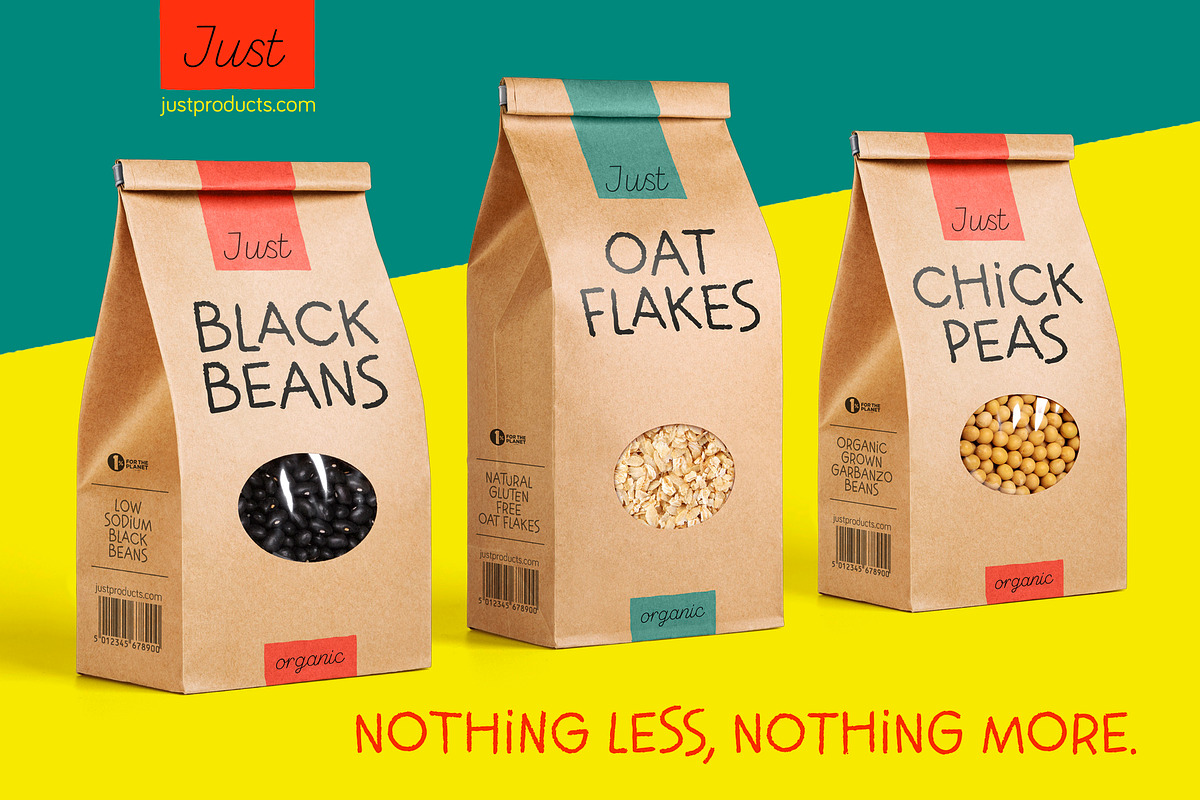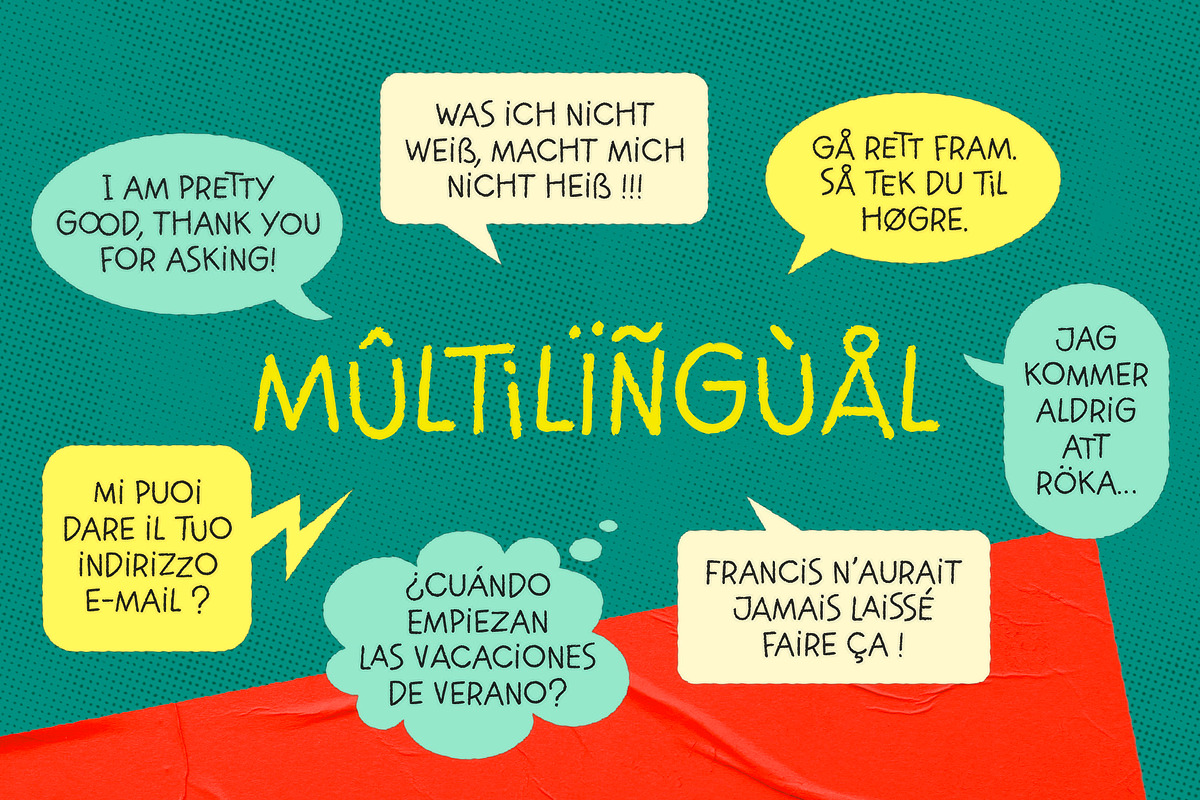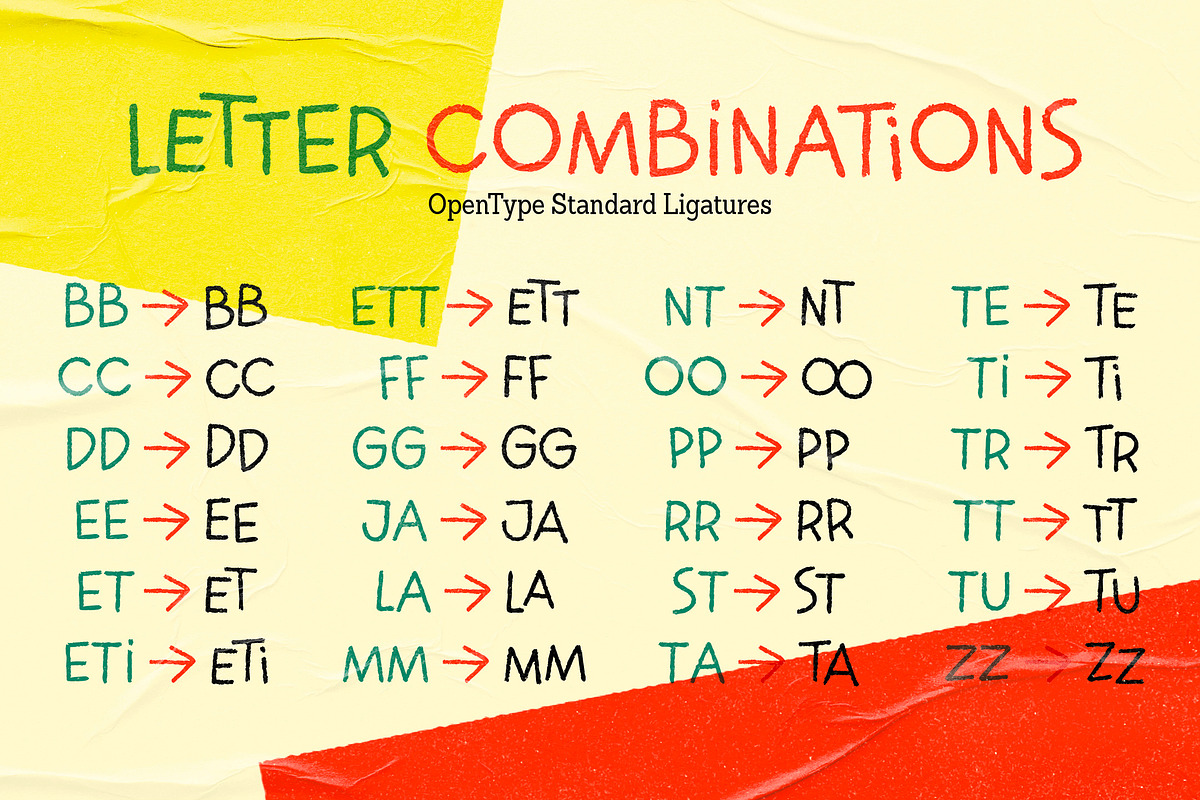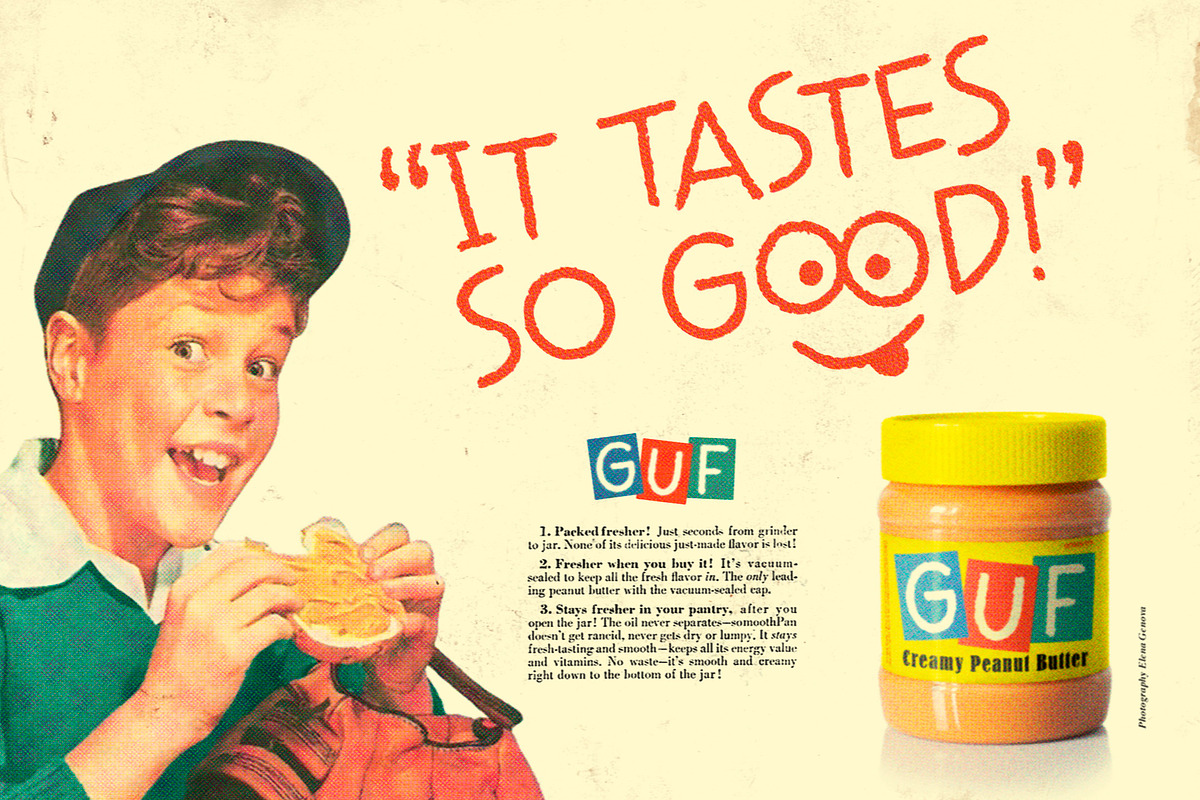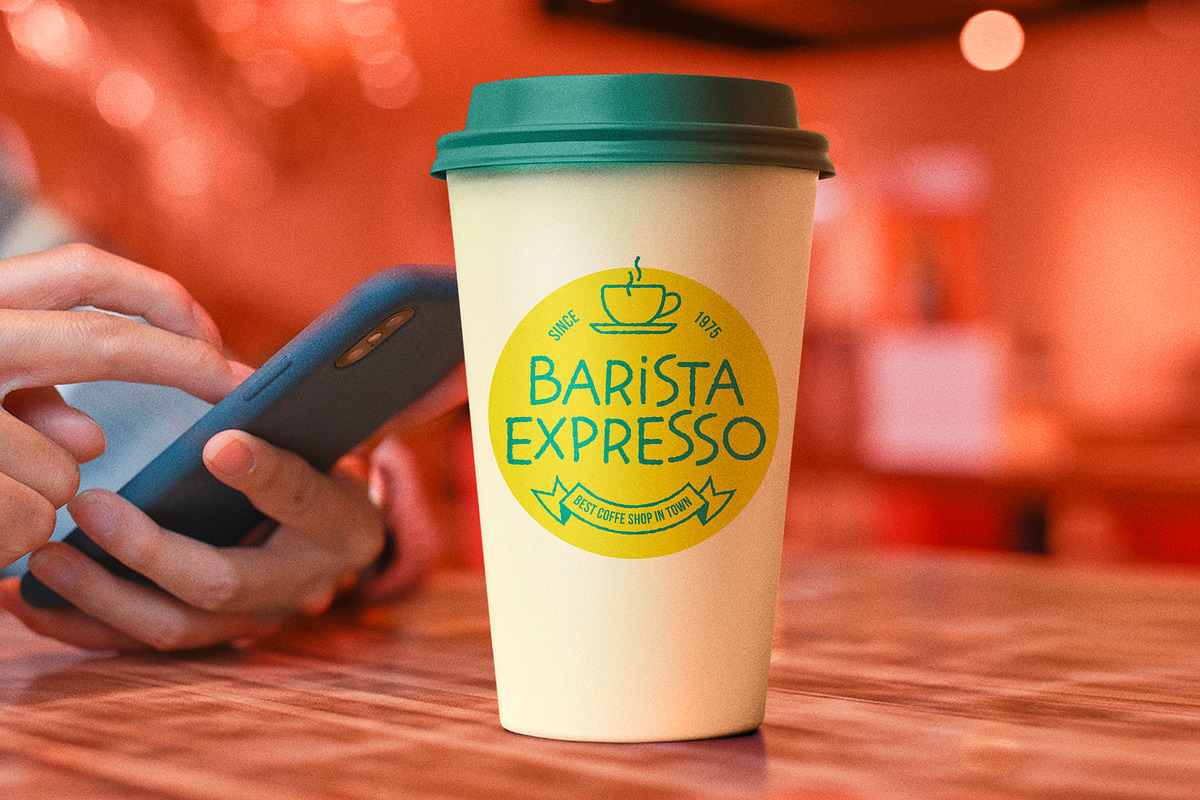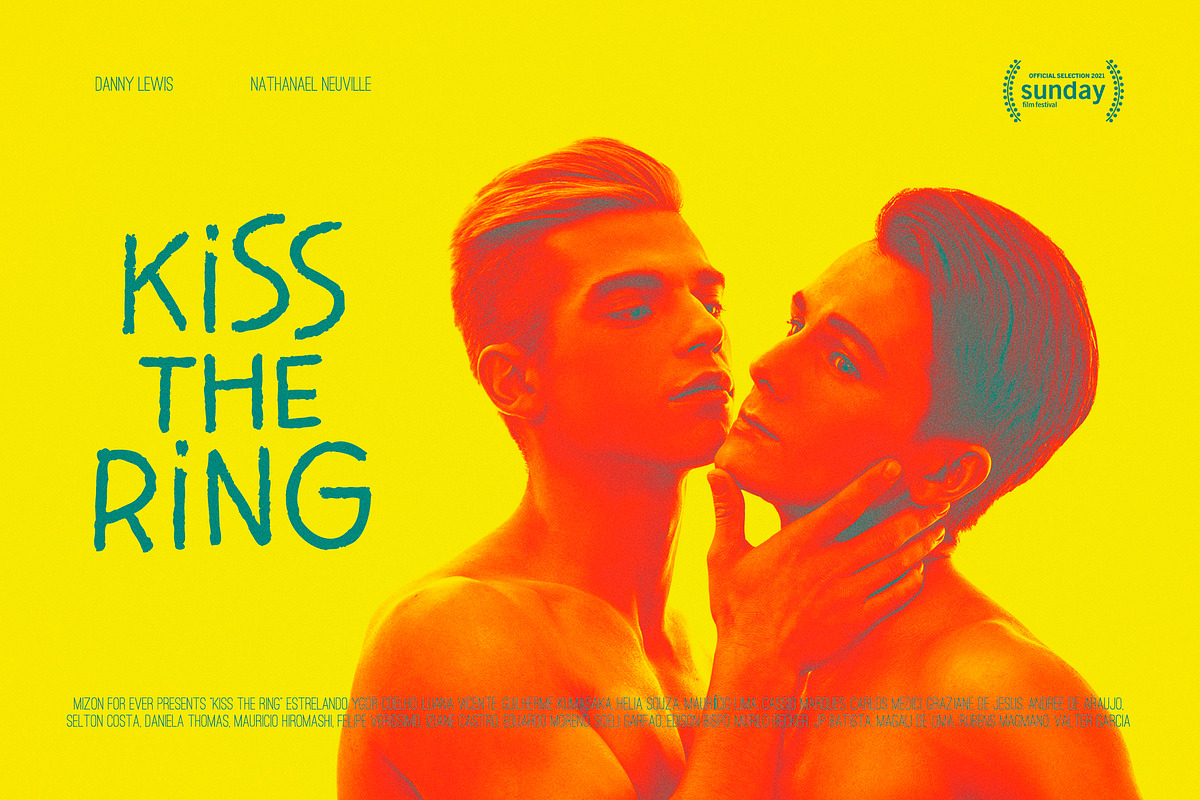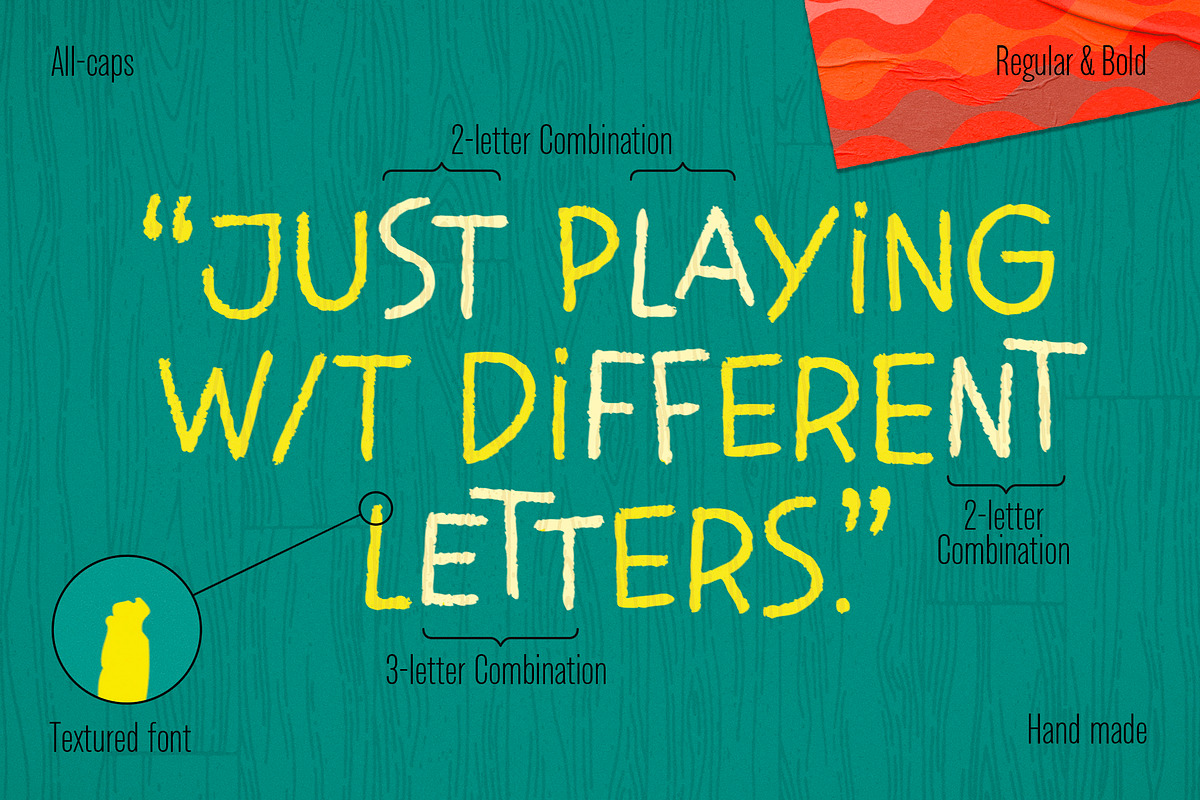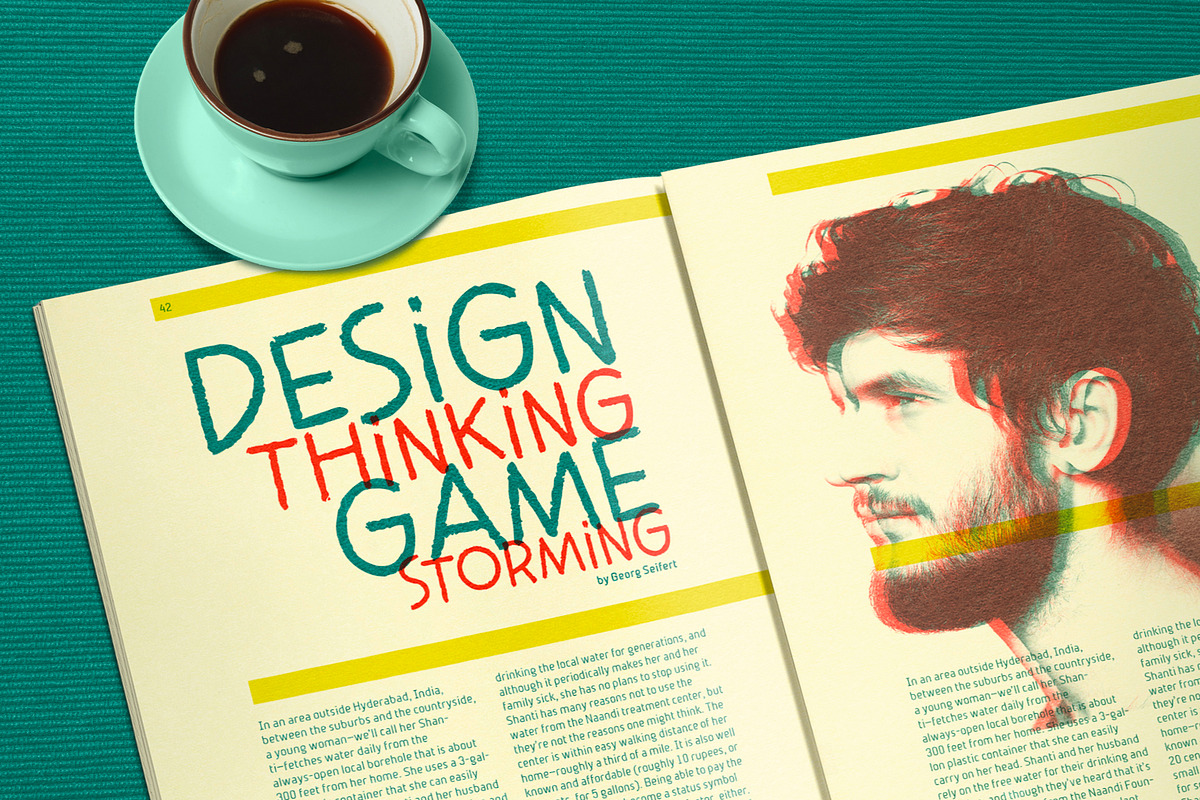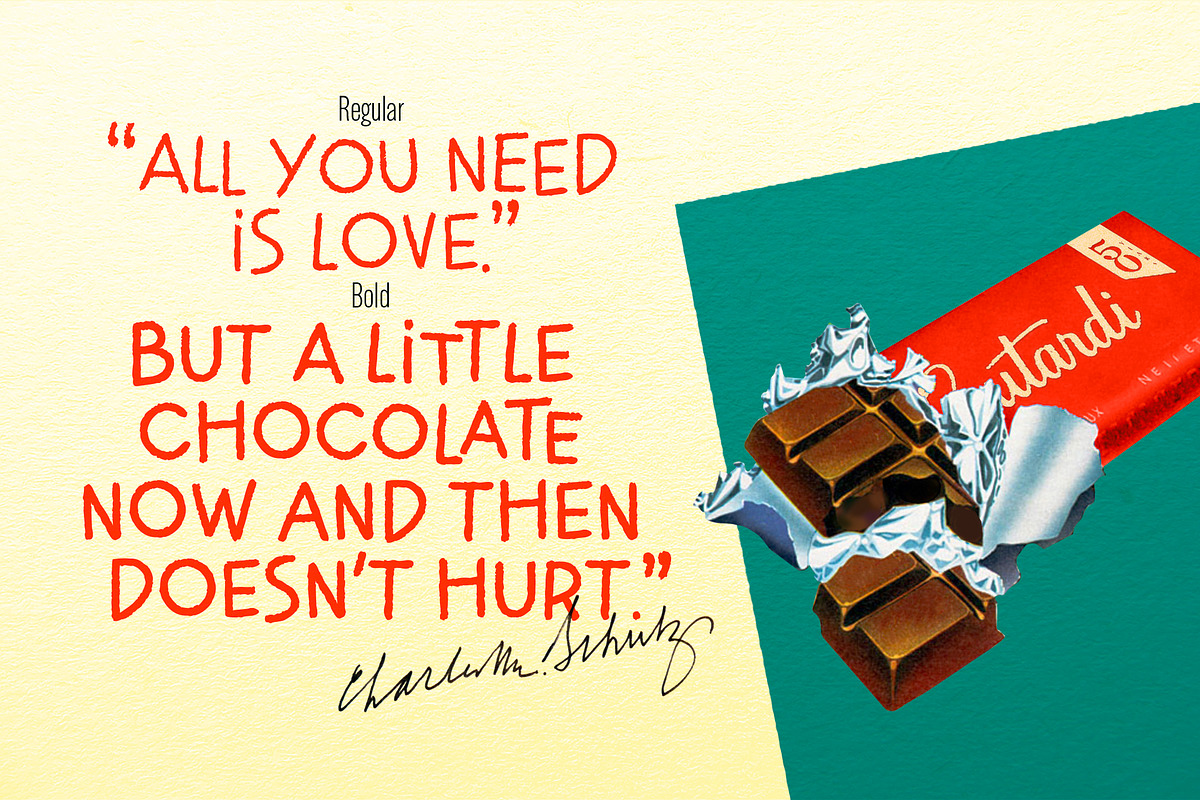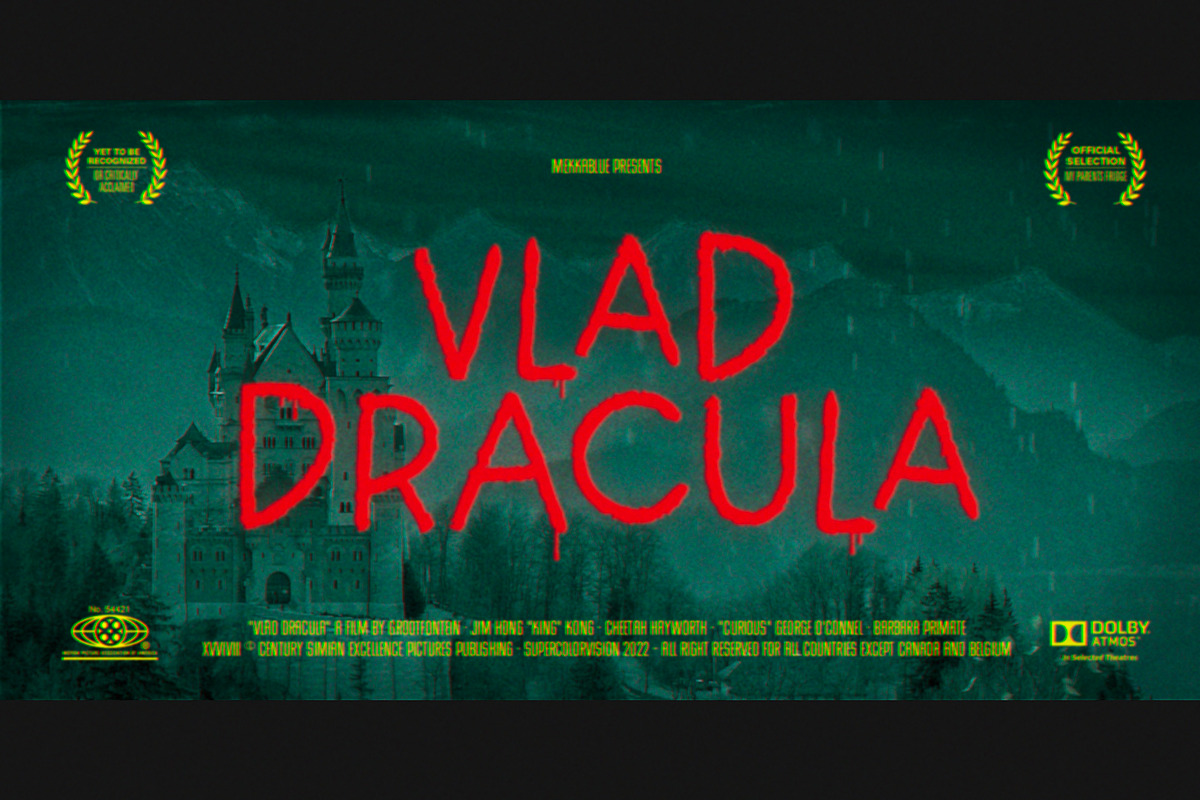
Jazzy Croquette
Jazzy Croquette is a friendly handwritten all-caps font family made for jazzing up your designs! It was initially designed by illustrator Art Grootfontein for lettering his speech bubbles. Some cool Opentype ligatures give its distinctive organic jazzy feel. Jazzy Croquette is a professional tool designed to support Central and Eastern European as well as Western European languages. This font would be honored to be used on comic book, games, press, food products, advertising and all kind of stationery